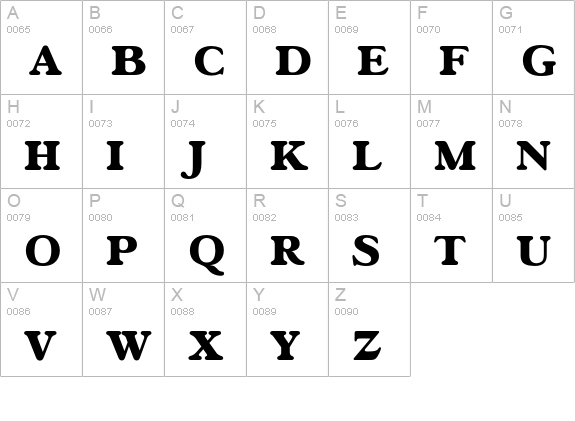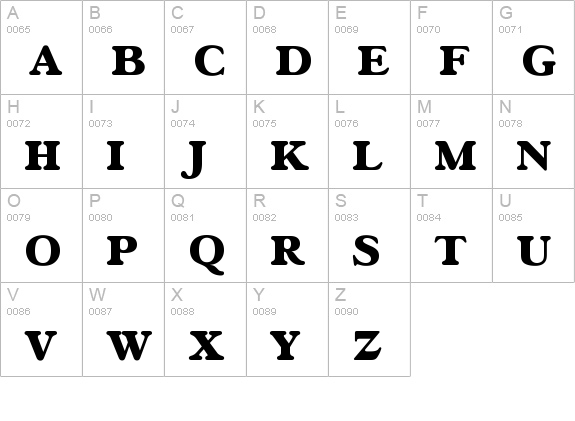
Gascogne-ExtraBold is an extra-heavy, attention-grabbing variant in the Gascogne typeface family \xE2\x80\x94 well suited to high-impact headlines, posters, and bold branding.
Gascogne-ExtraBold is a striking and powerful font that commands attention with its bold and confident presence. Its thick strokes and strong letterforms exude a sense of authority and dominance, making it perfect for headlines, titles, and other prominent text elements. The font's extra bold weight ensures that your message is delivered with maximum impact and clarity. What sets Gascogne-ExtraBold apart is not just its impressive design, but also the fact that it is available for free download at FontsMarket.com. This means that you can easily access this premium font without any cost, making it a valuable addition to your design toolkit. Whether you're working on a branding project, advertising campaign, or any other creative endeavor, Gascogne-ExtraBold is sure to make a bold statement and leave a lasting impression. Download it today and elevate your designs with this exceptional typeface.